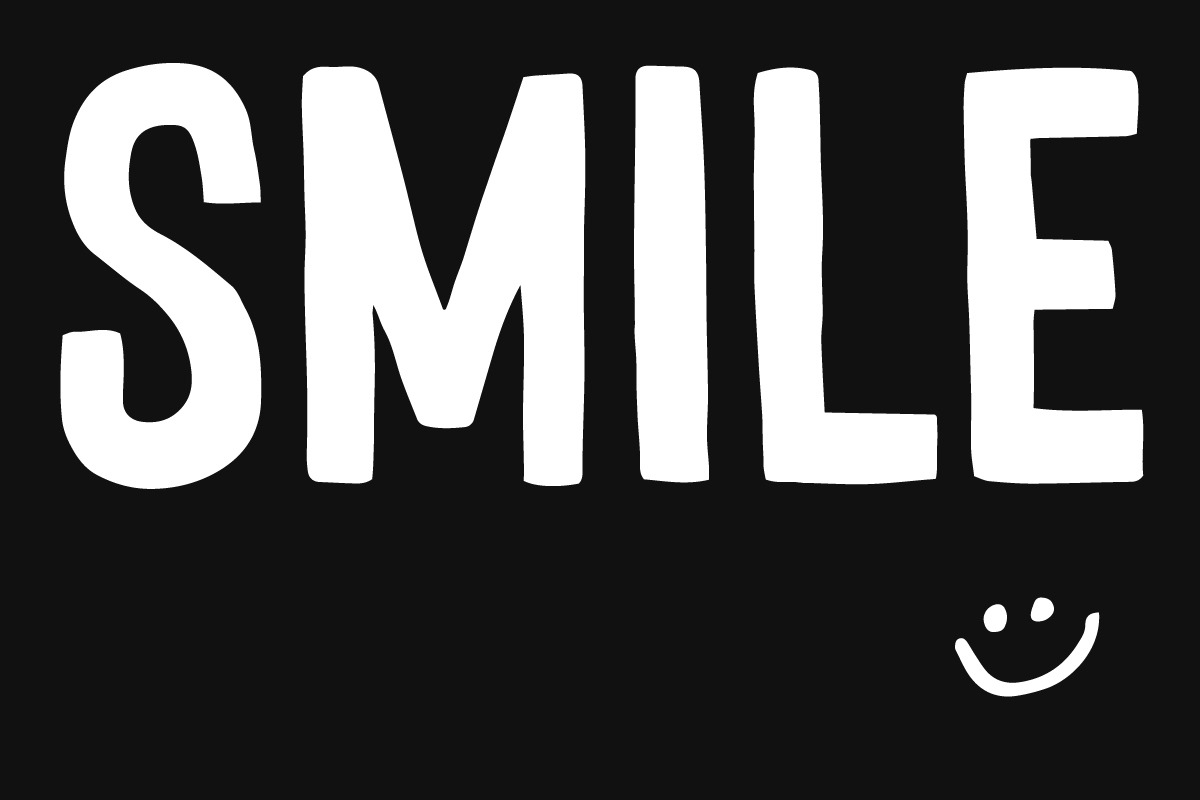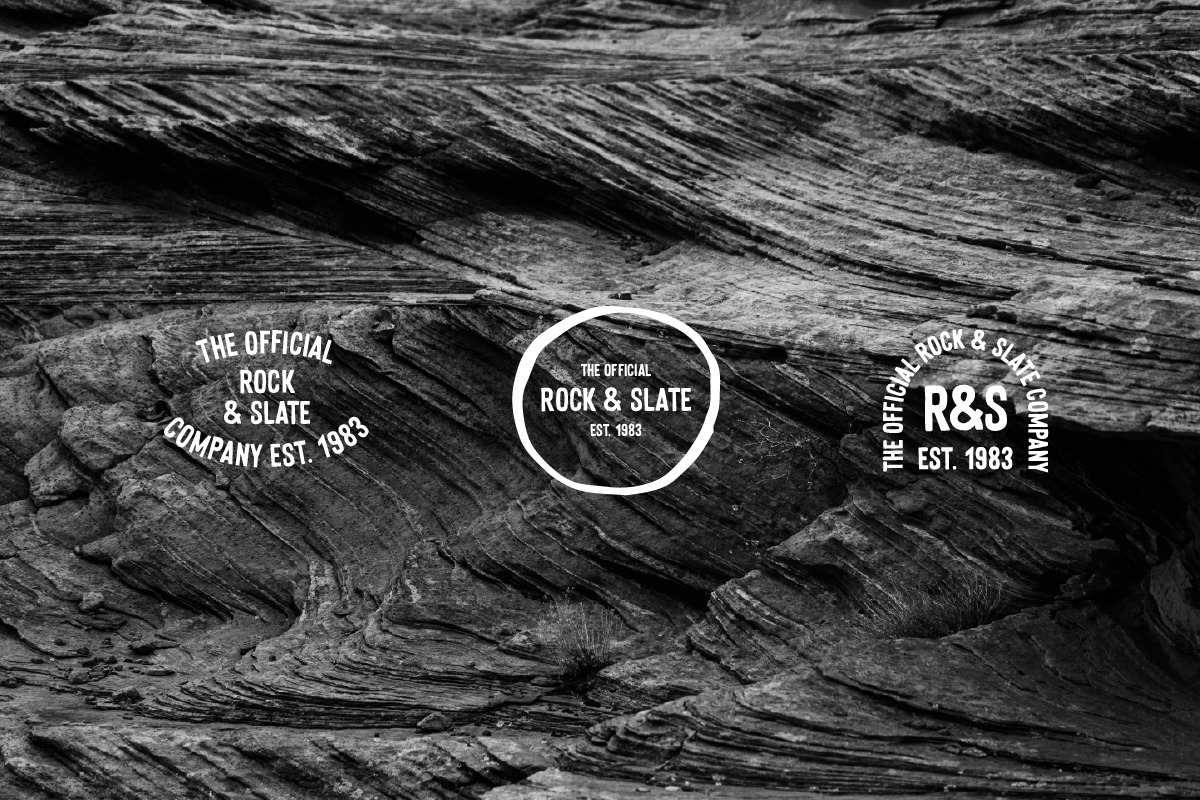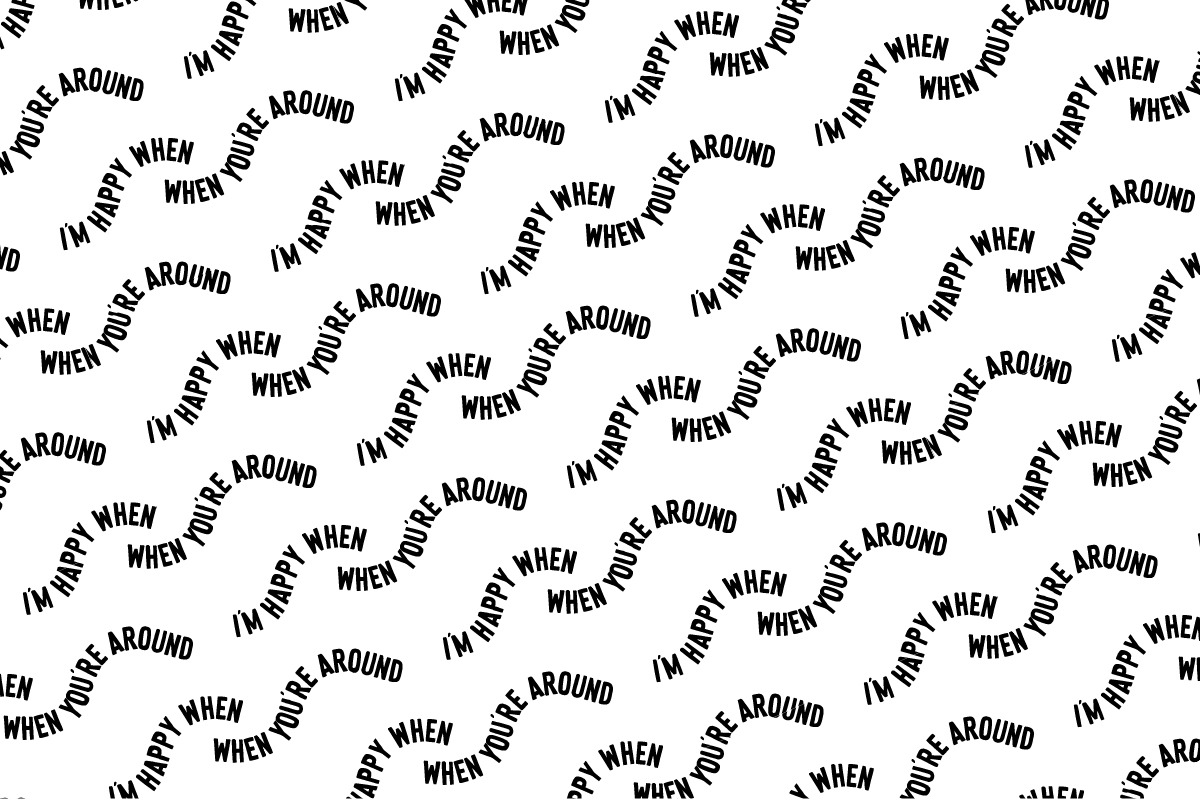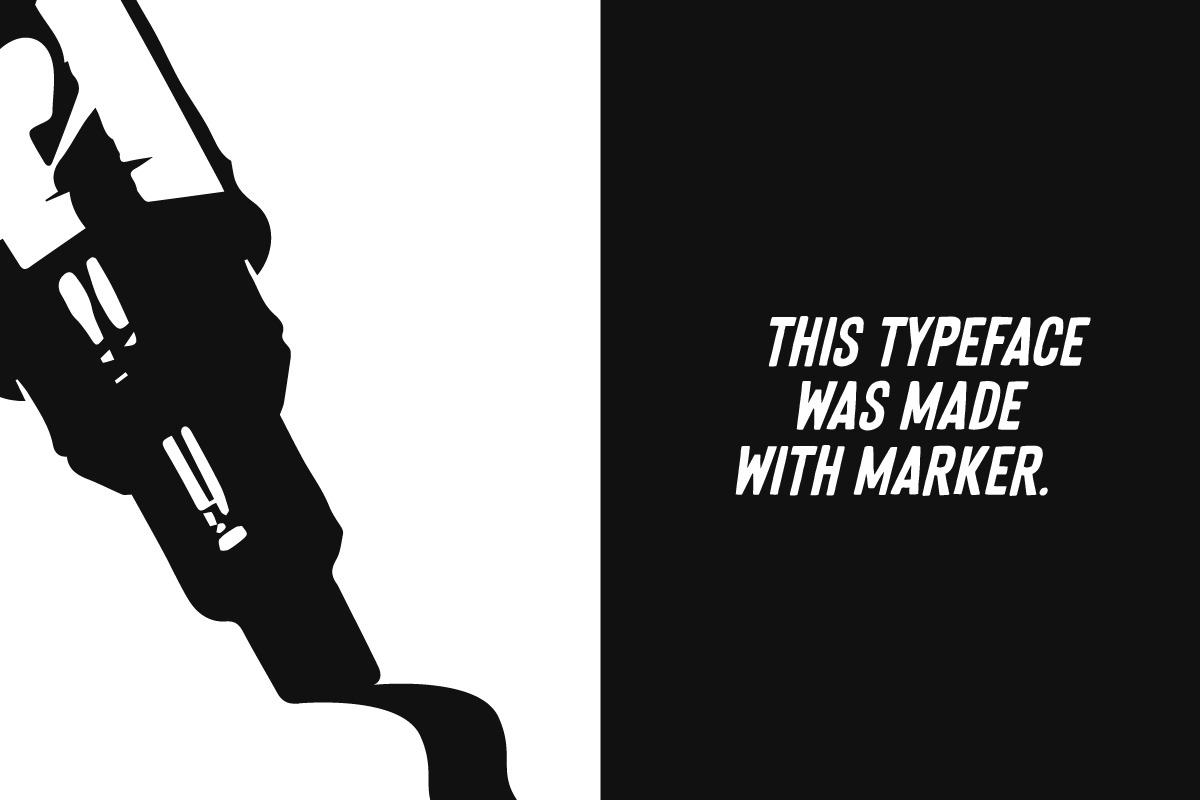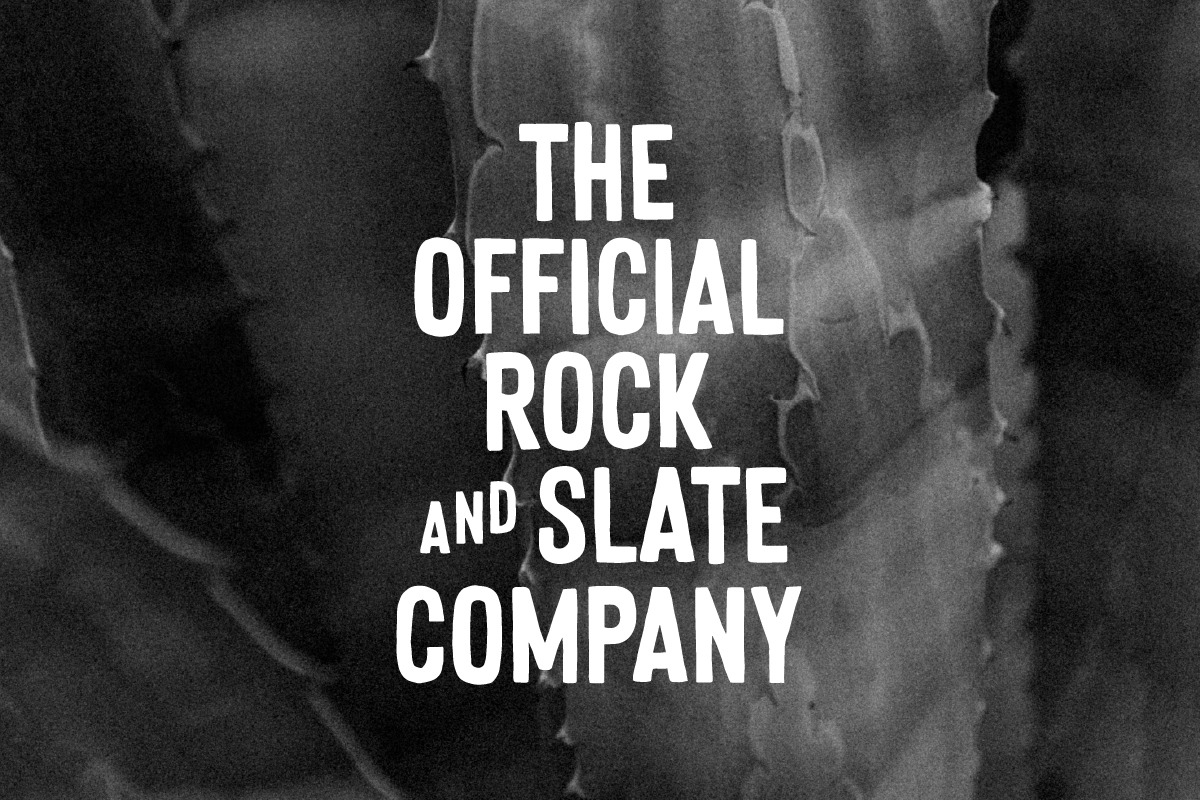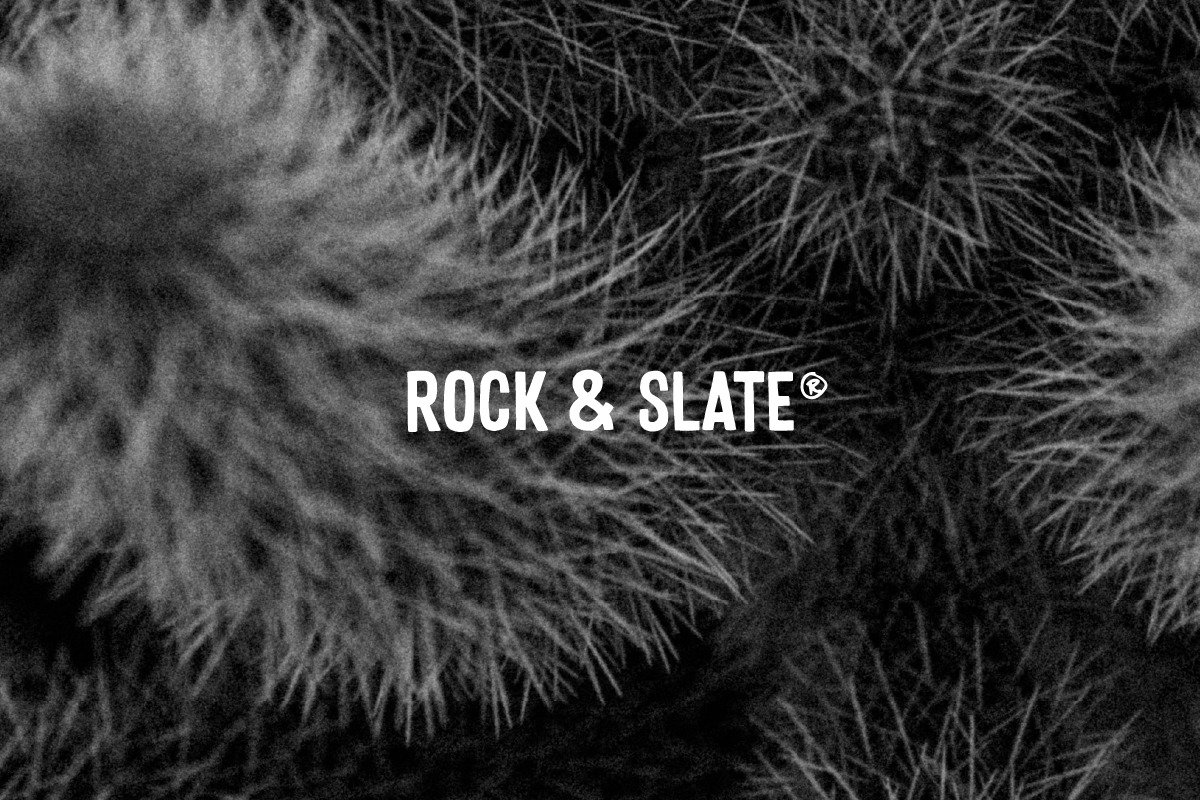
Hannik Font
Hannick font is an all caps font in normal and italic. SVG format.
These two variations are both hand made.
Why Hannik Font is worth a look
Hannik Font by Swatch Supply fits naturally into Branding, posters, packaging, typography.